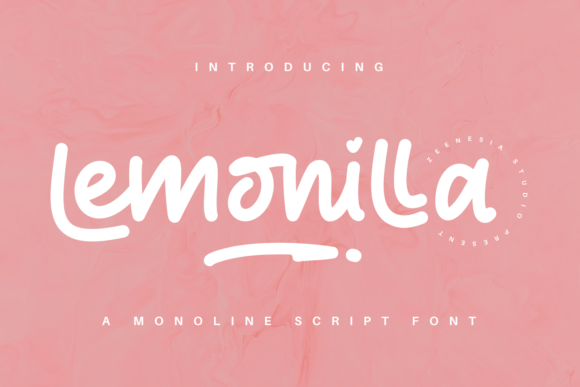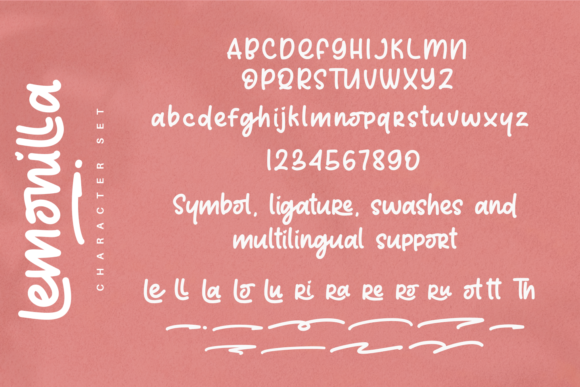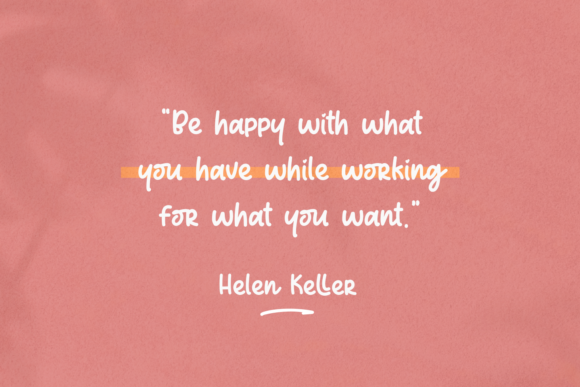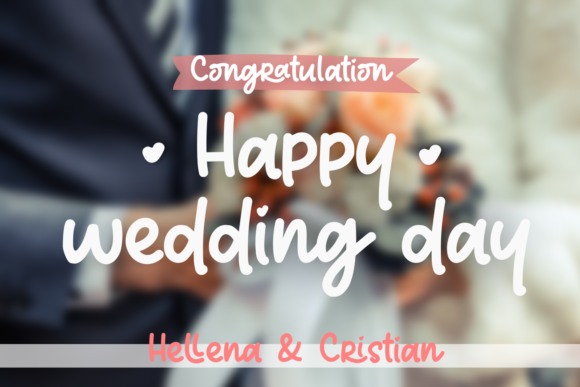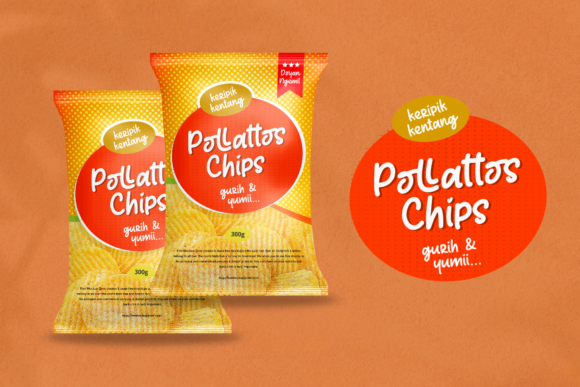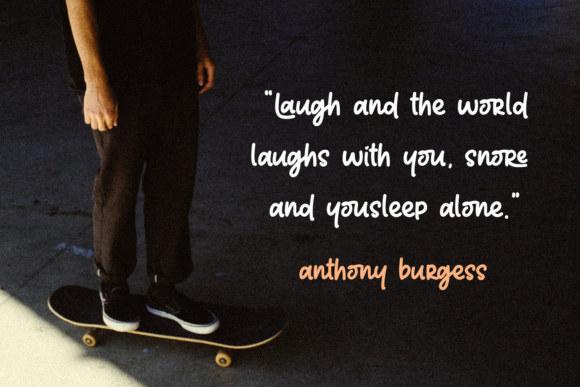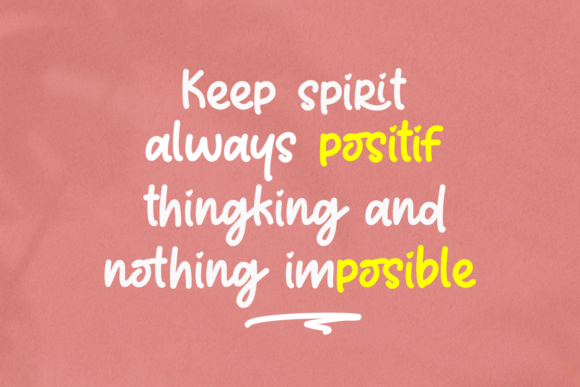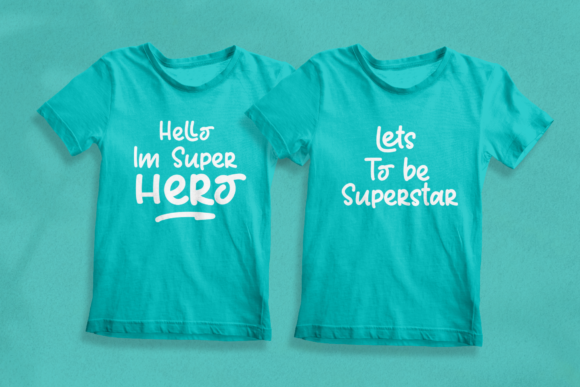
Lemonilla Font
About Lemonilla Font
Lemonilla is a lovely and timeless handwritten font. It is the best choice for creating eye catching logos, branding and quotes. Every letter has a unique and beautiful touch, which will make your design come alive!